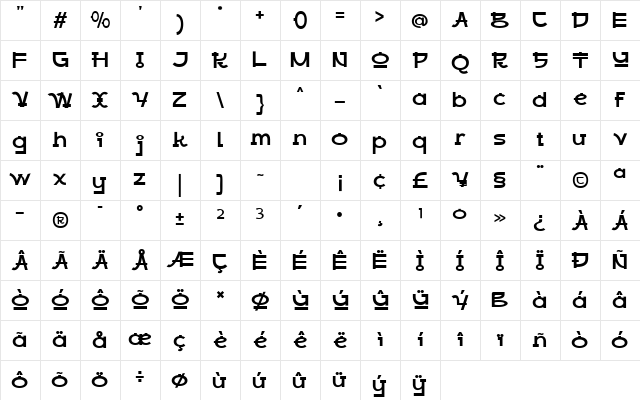
RABOAN Trial Regular
Foundry: twinletter
Designer: Rudy
Design Context for RABOAN Trial
RABOAN Trial is a composed and adaptable typeface that performs quietly and consistently across a wide range of design contexts.